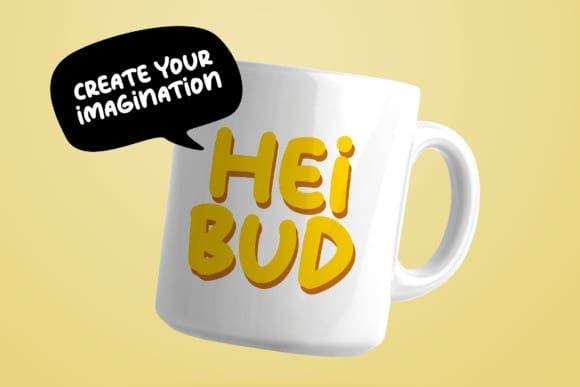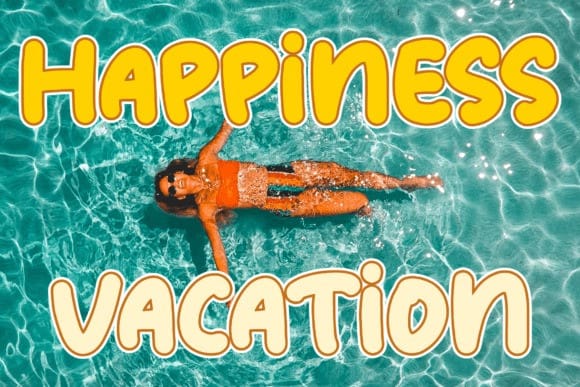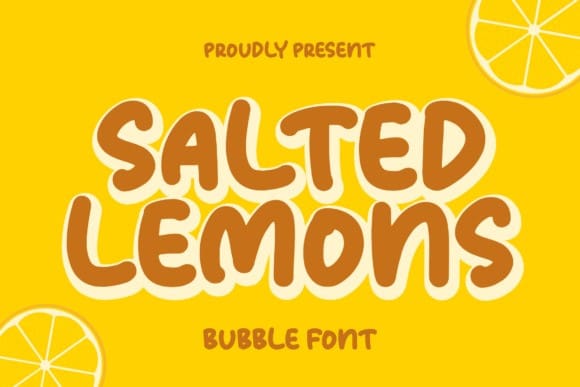
Salted Lemons Font
Salted Lemons Font – Bubble Font suitable for any projects such as logos, branding projects, homeware designs, product packaging, mugs, quotes, posters, shopping bags, t-shirts, book covers, name cards, invitation cards, greeting cards, labels, photography, watermark, special events, and all your other lovely projects that need a beautiful handwritten taste.